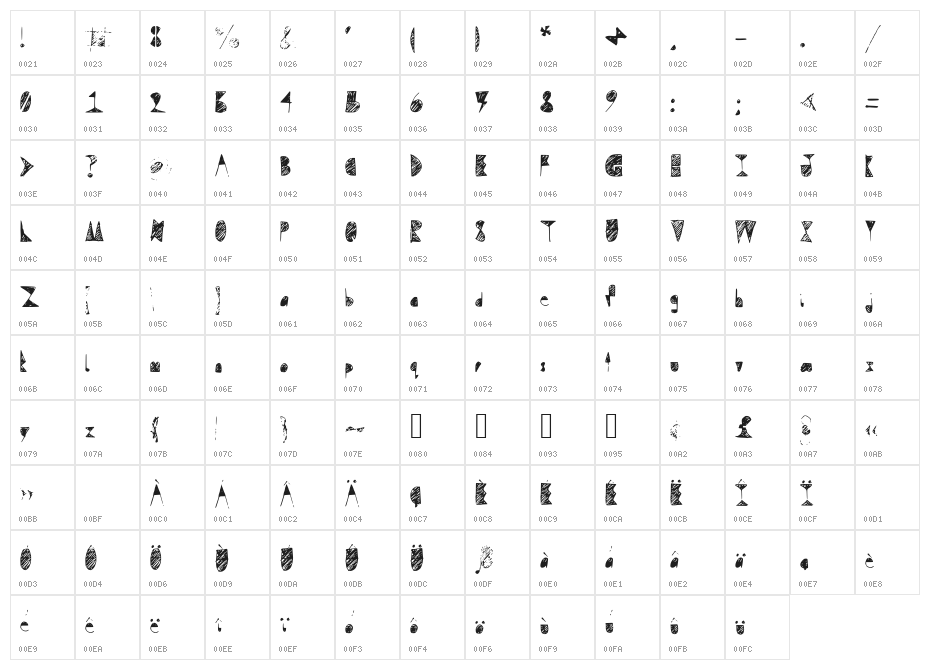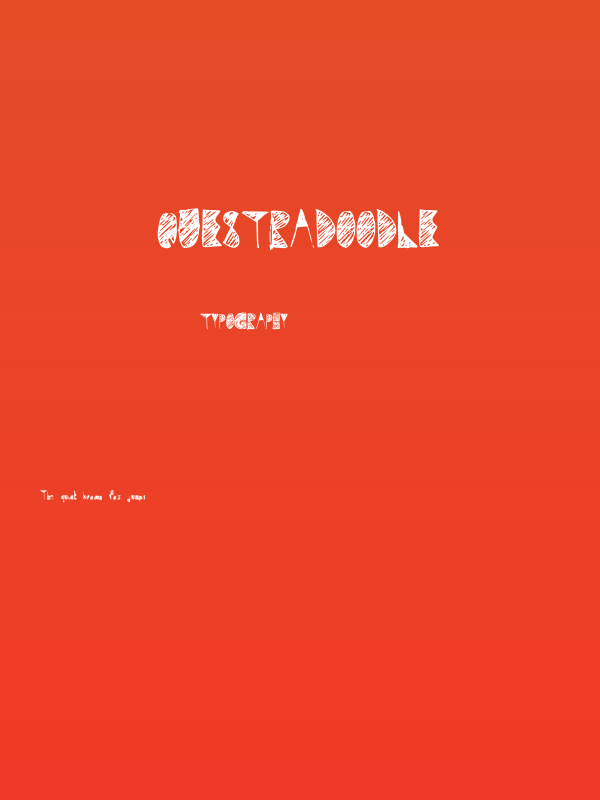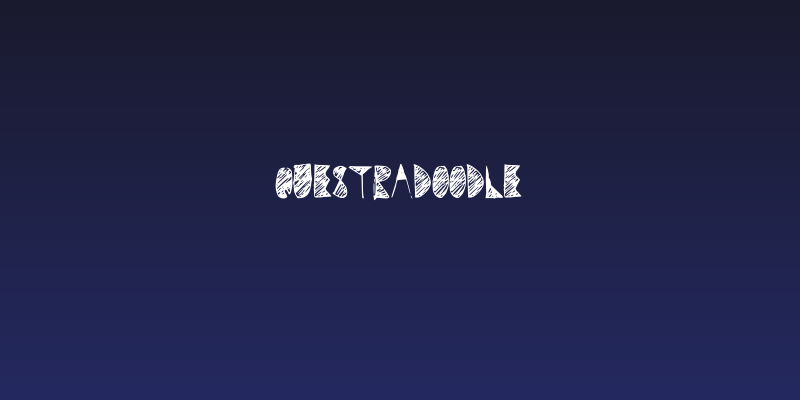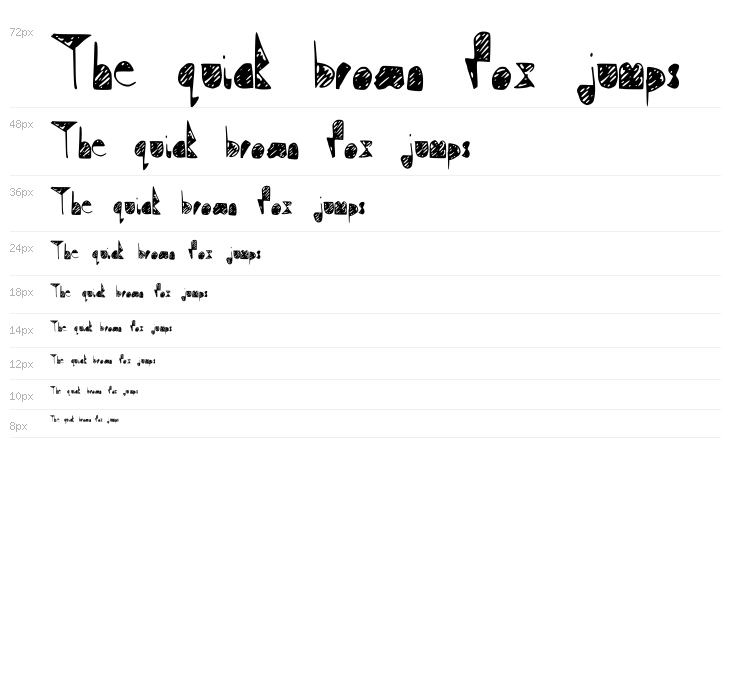
QuestraDoodle Font
QuestraDoodle Description
This font features a playful and artistic style, characterized by its hand-drawn, doodle-like appearance. Each character is uniquely crafted with irregular shapes and varying line thicknesses, giving it a whimsical and creative feel. The uppercase letters are bold and dynamic, while the lowercase letters maintain a consistent, yet quirky design. Numbers and special characters follow the same artistic theme, making the font suitable for projects that require a fun and informal touch. The overall design is reminiscent of sketches or graffiti, adding a lively and energetic vibe to any text.
QUESTRADOODLE UPPERCASE
QUESTRADOODLE LOWERCASE
QUESTRADOODLE OTHER CHARS
| Proposed Projects | Ideal for children's books, creative posters, playful branding, and artistic invitations. |